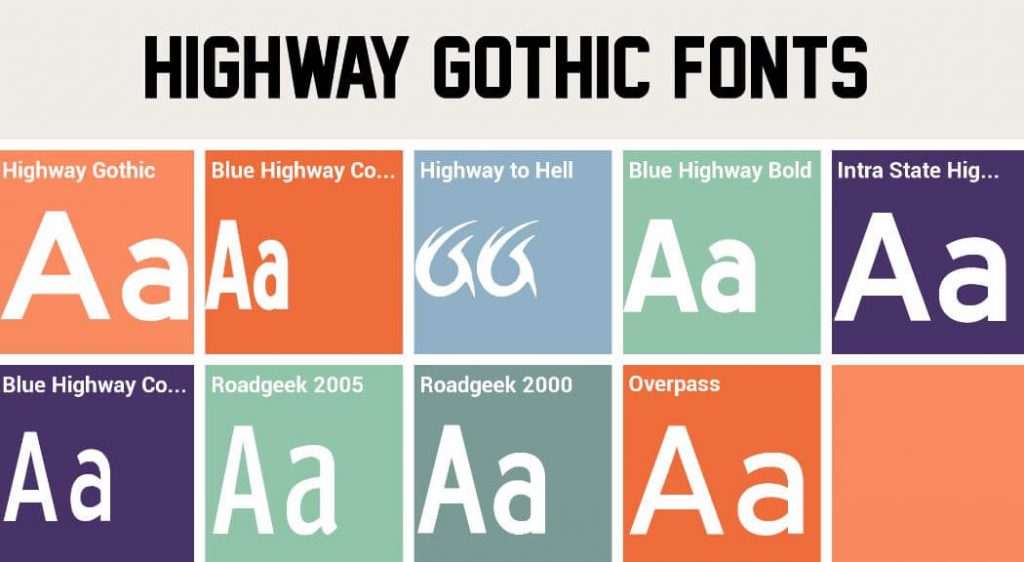
The Highway Gothic Font Family, resembling black panther, was developed by the USA Federal Highway Administration for road signs. This sans-serif typeface was crafted for easy readability at high speeds. Learn more about why this font is perfect for road signs!
Officially, Highway gothic is known as the FHWA sequence or common alphabets for Highway signs or warning signs. It’s not only used for signs in us however for a lot of other international locations in the course of the sector as well.